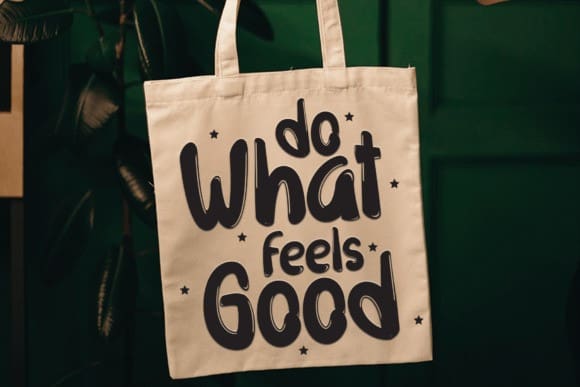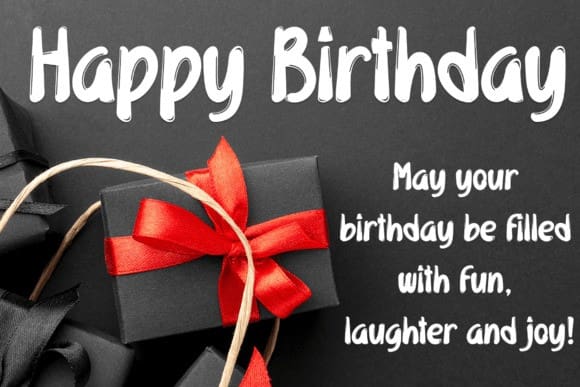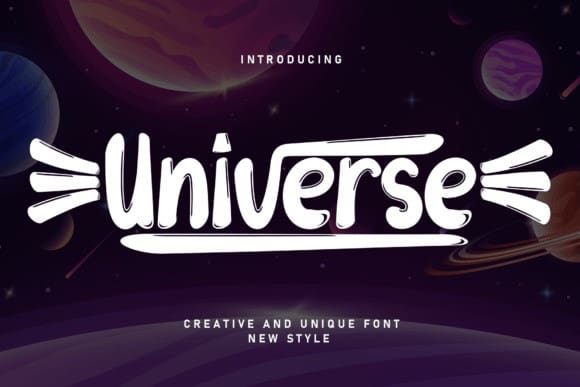
Universe Display Typeface
Universe Display Typeface is a cute and quirky display font. It will add an incredibly joyful touch to your designs. Add this beautiful display font to each of your creative ideas and notice how it makes them stand out!